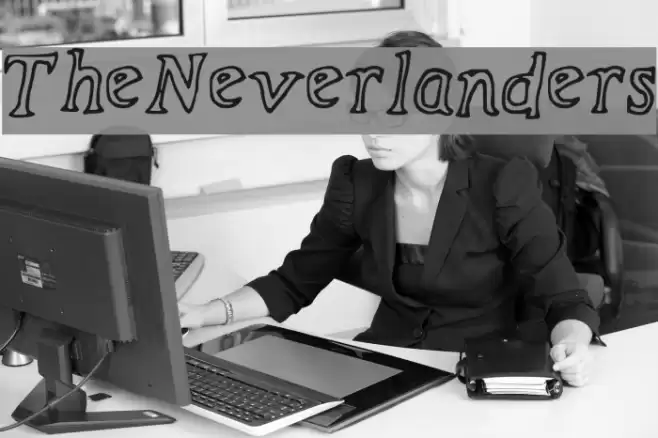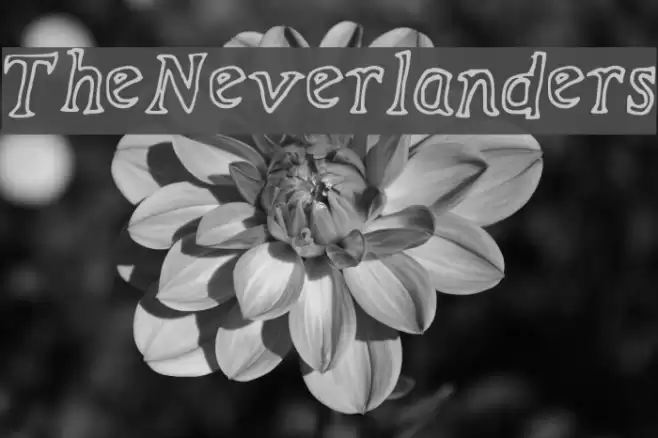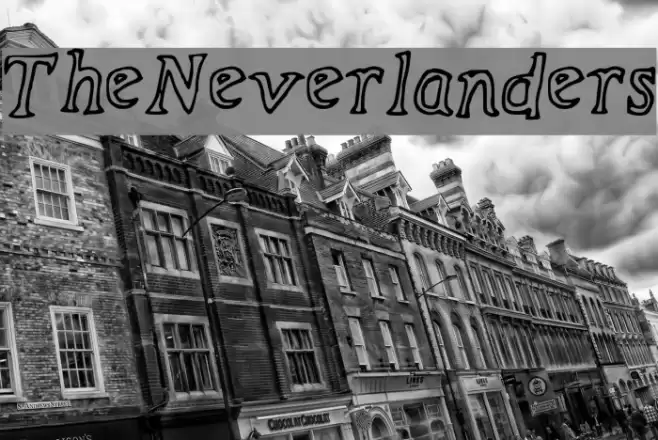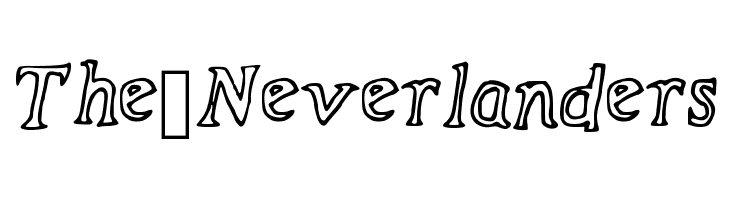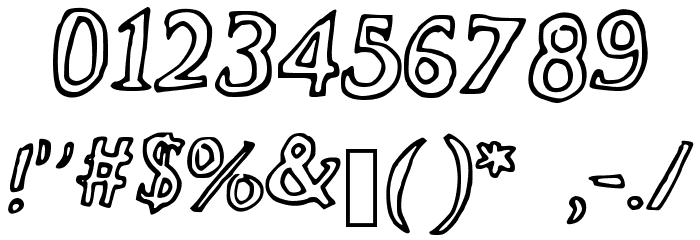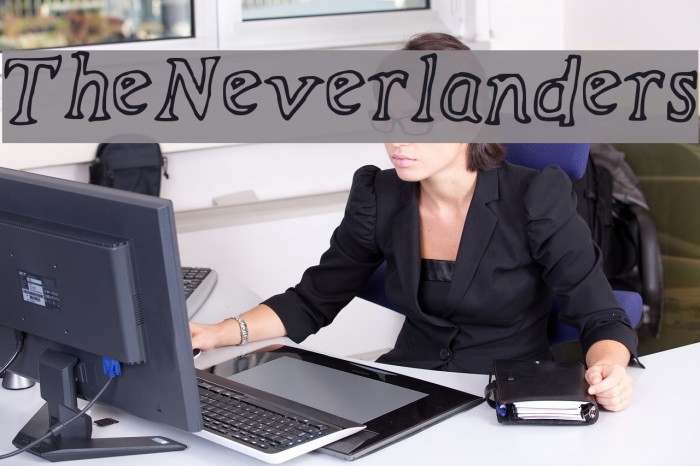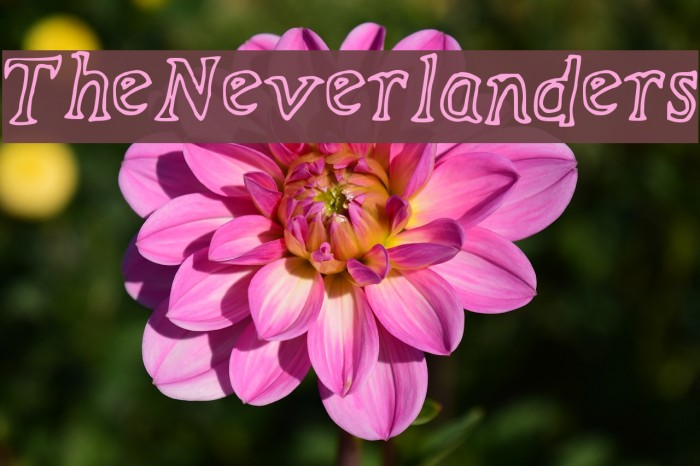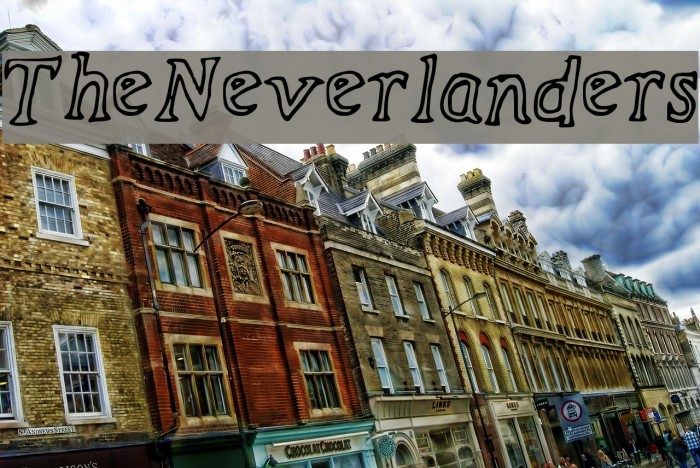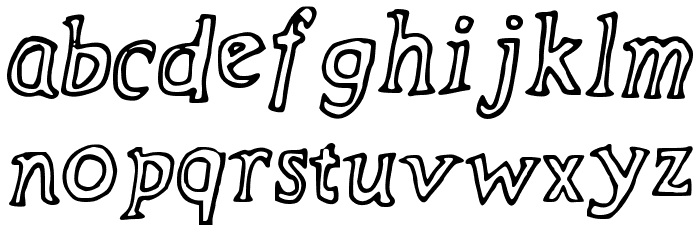
The_Neverlanders Font
The_Neverlanders Description
This font features a whimsical and playful design, characterized by its bold, outlined letters that evoke a sense of adventure and fantasy. The uppercase letters have a slightly irregular shape, adding to the font's charm and uniqueness. The lowercase letters maintain a consistent style, with a slight slant that gives them a dynamic appearance. The numbers are bold and clear, making them easily readable. Special characters are creatively designed, maintaining the overall theme of the font. This font is perfect for projects that require a touch of magic and imagination, such as children's books, fantasy-themed posters, or playful branding.
A whimsical, outlined font with a playful and adventurous style from Uncategorized fonts.
- Proposed Projects: Ideal for children's books, fantasy-themed posters, playful branding, and creative invitations.
- Overall Style: Playful, Whimsical, Fantasy